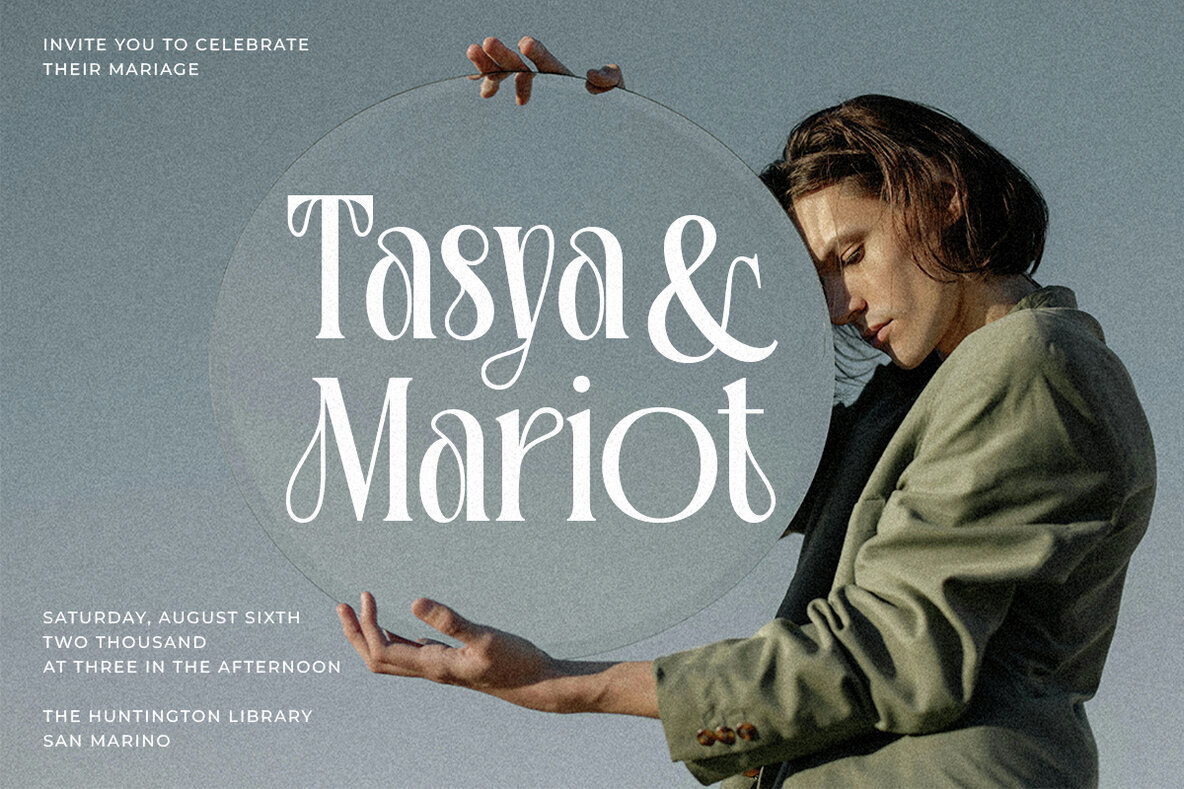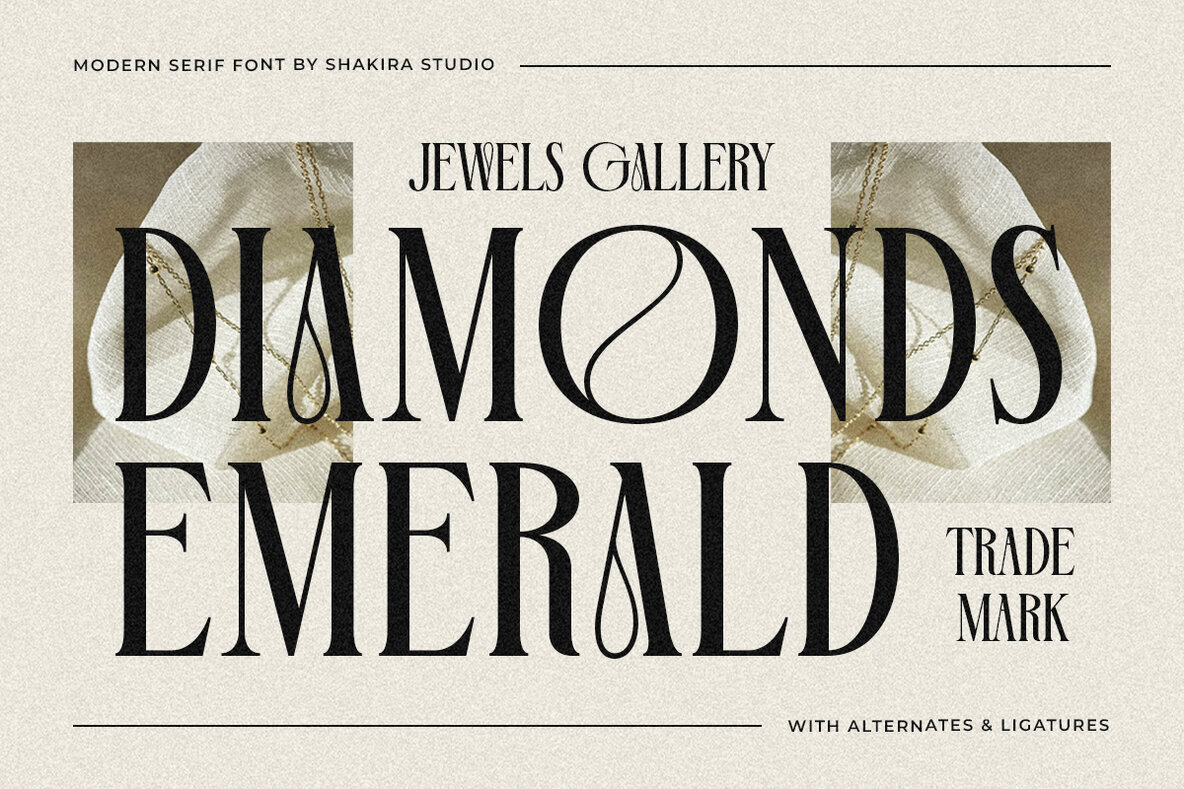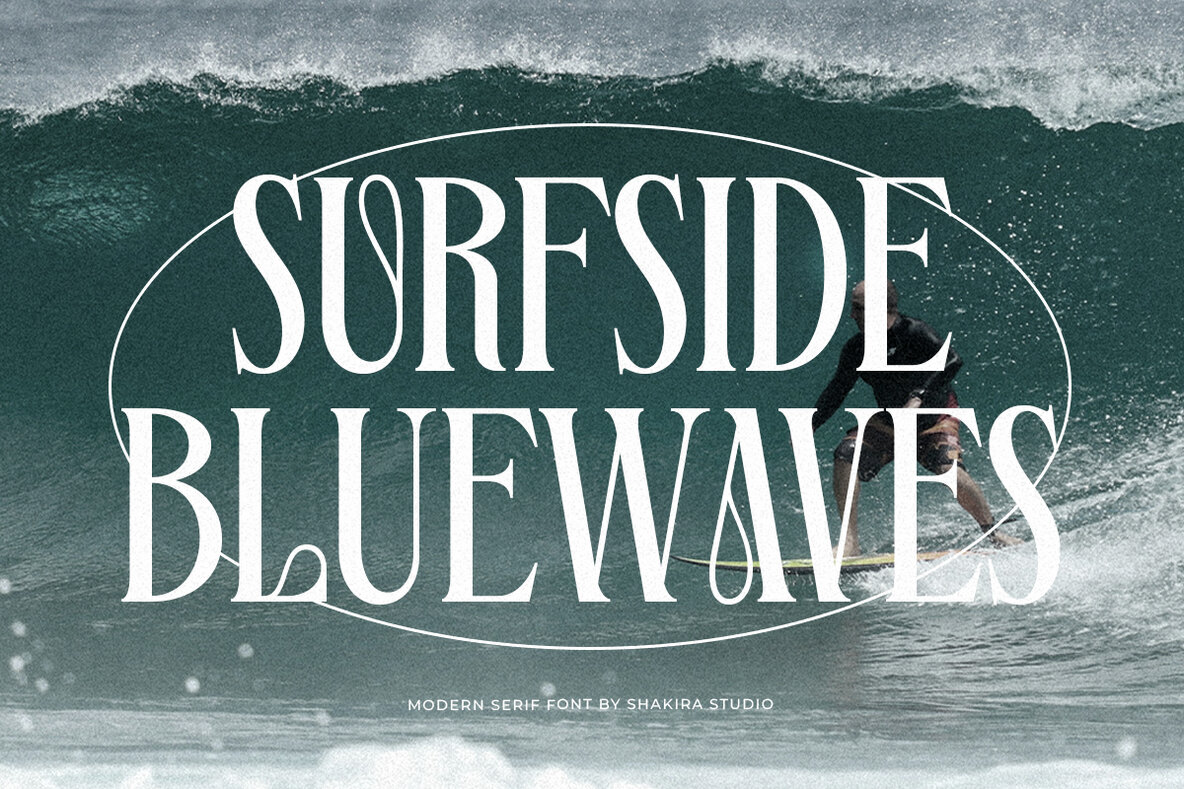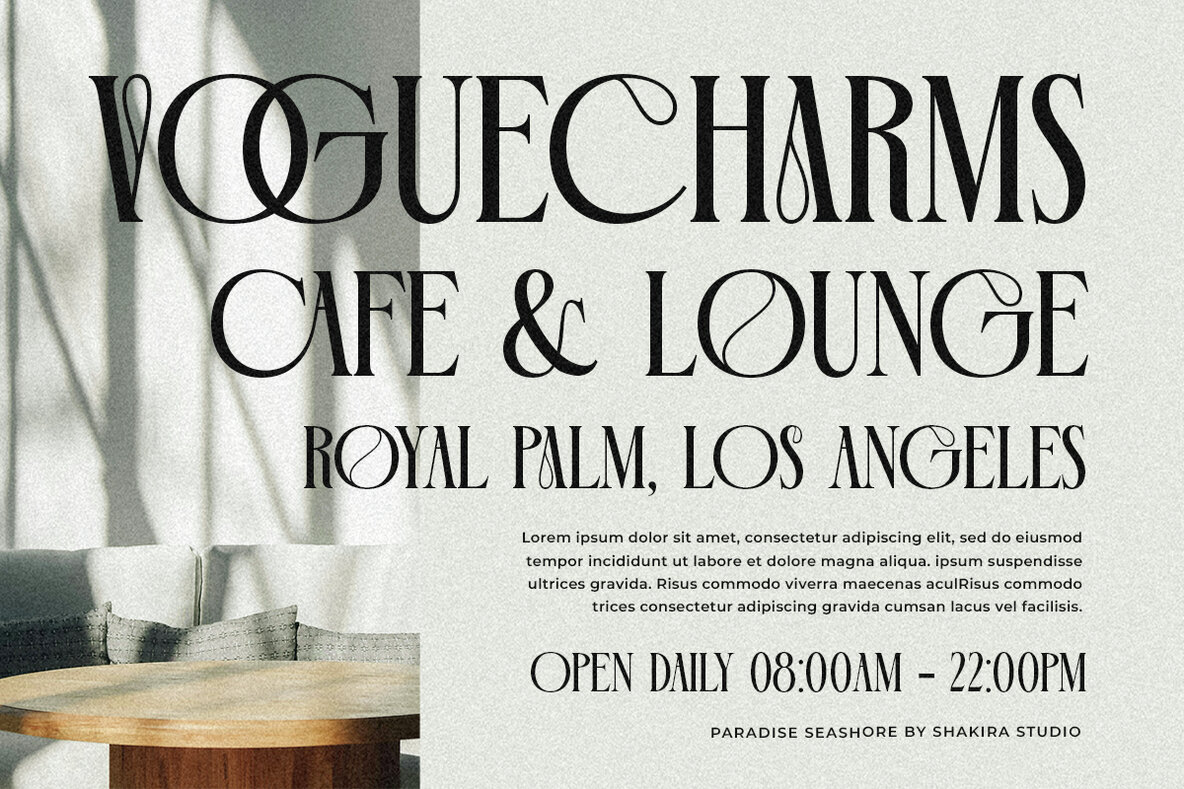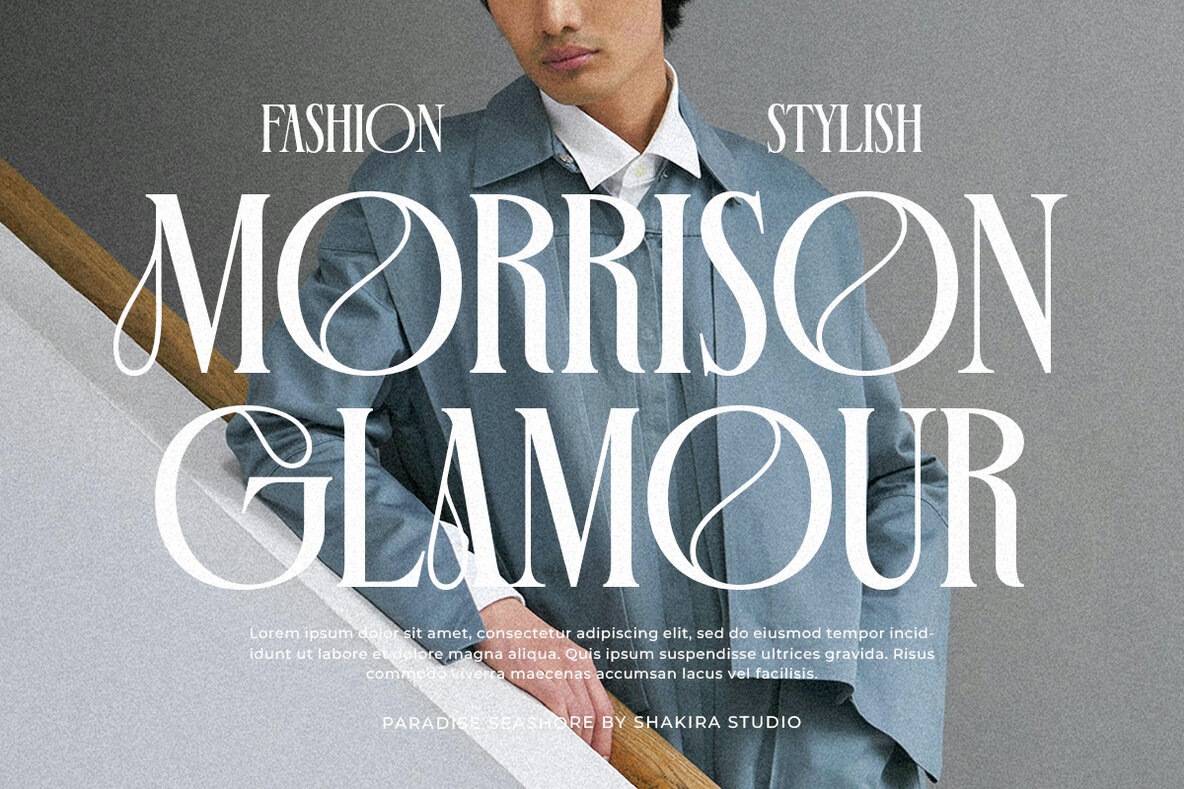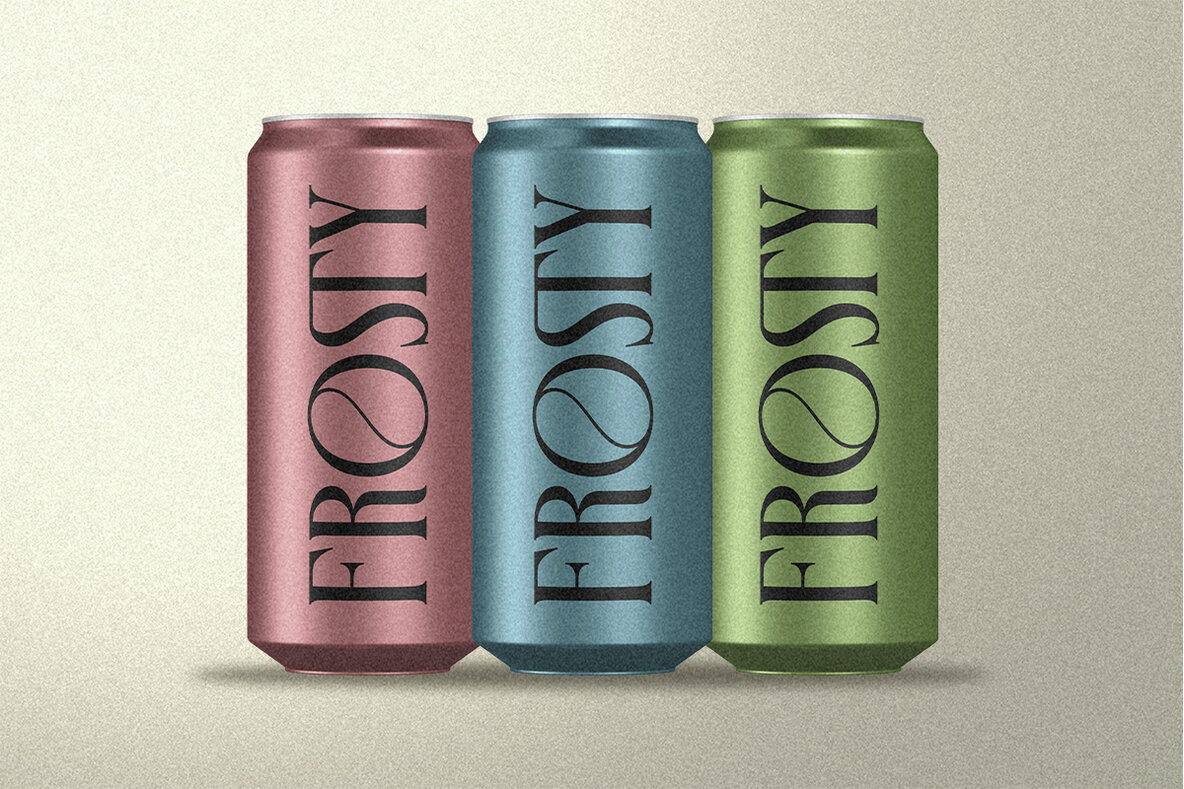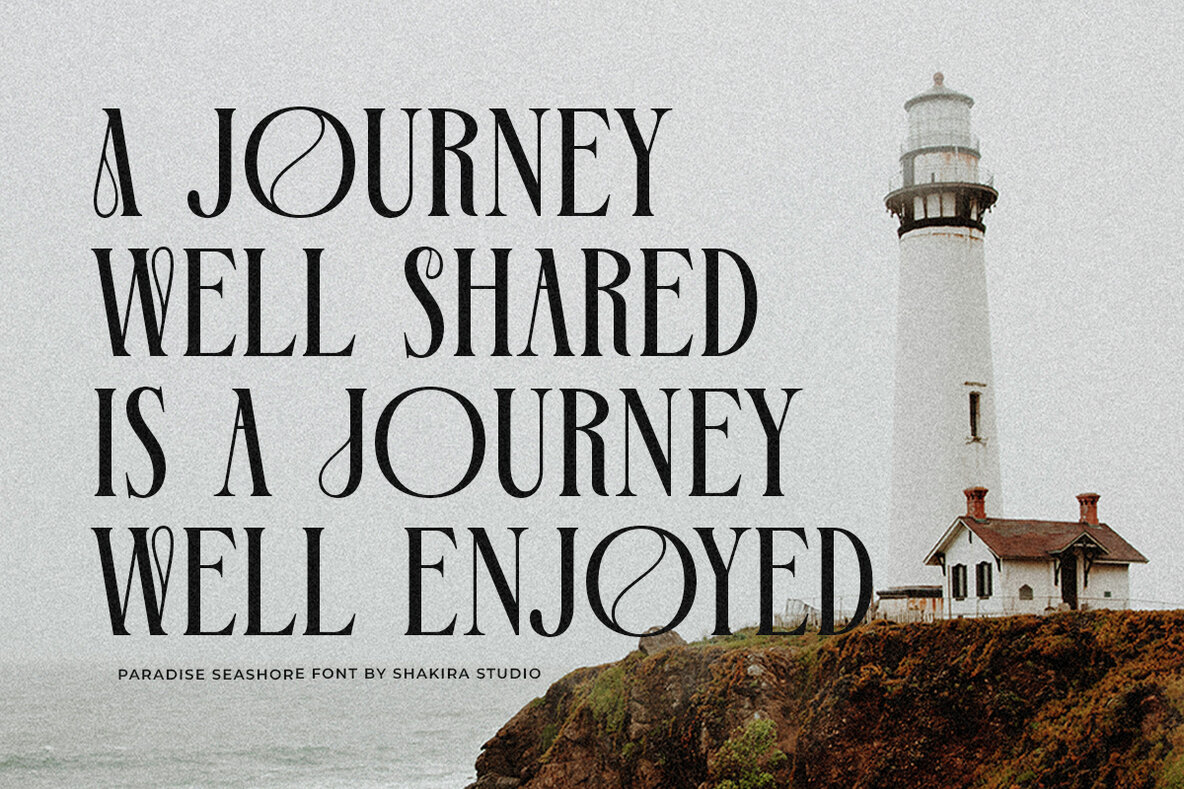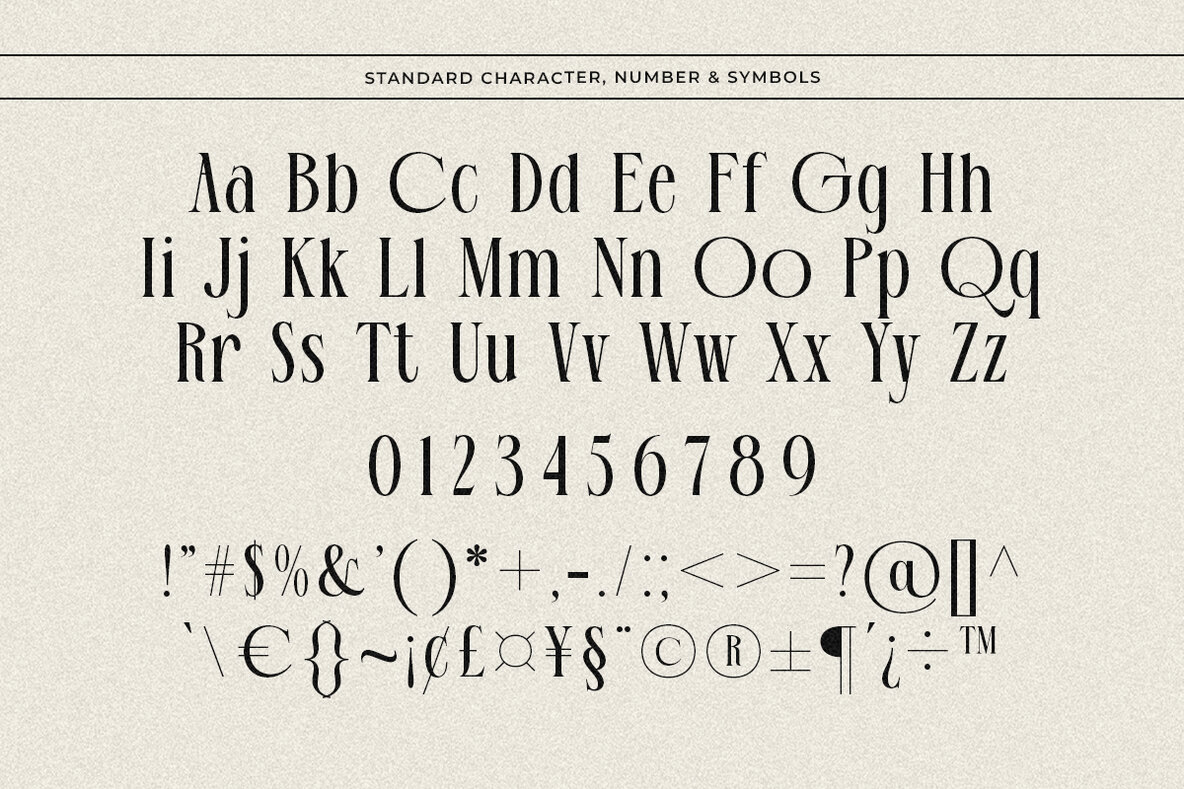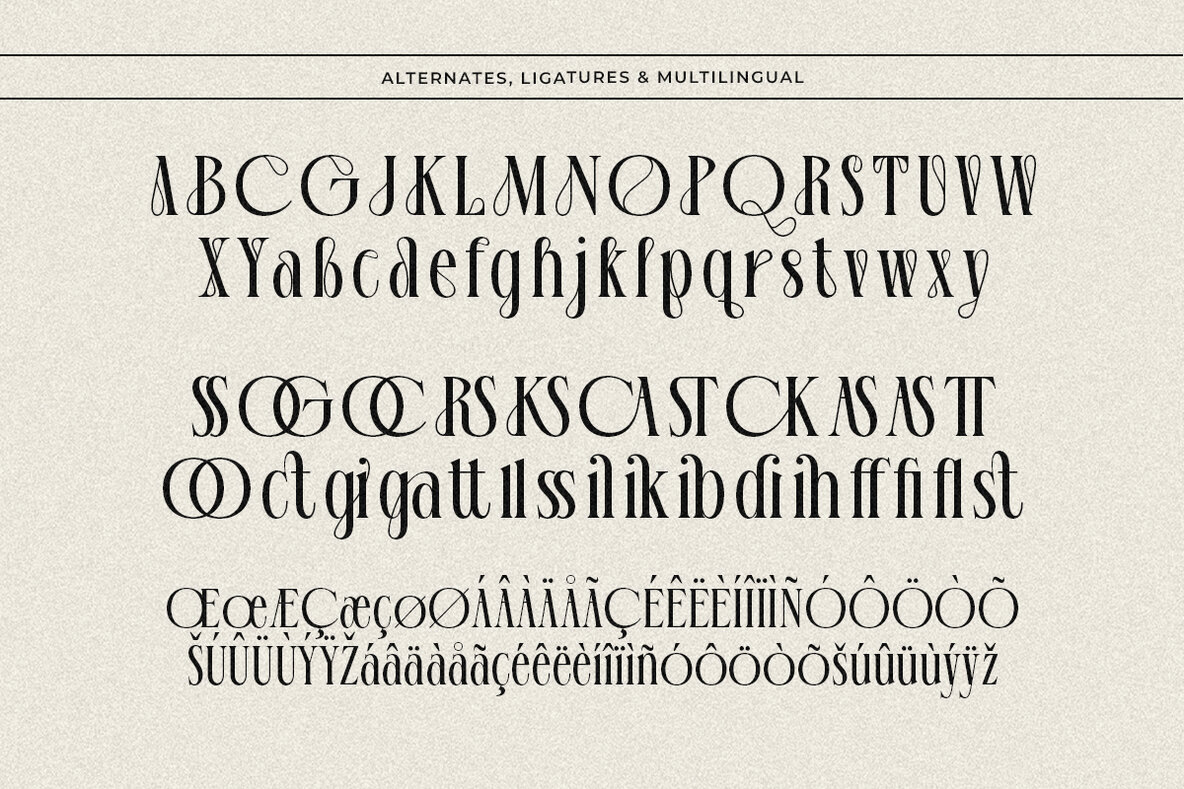
Paradise Seashore Font
Paradise Seashore Regular
Paradise Seashore Italic
Introducing Paradise Seashore, a luxurious modern tropical Display Serif font. This elegant typeface features a variety of attractive alternates and ligatures, adding a touch of sophistication to any design. Perfect for creating captivating headlines, branding, and editorial pieces, Paradise Seashore comes in both regular and italic versions, ensuring versatility for all your creative needs. Elevate your designs with the refined beauty of Paradise Seashore. Here's what you get: Multilingual character supports : (Afrikaans, Albanian, Catalan, Croatian, Czech, Danish, Dutch, English, Estonian, Finnish, French, German, Hungarian, Icelandic, Italian, Lithuanian, Maltese, Norwegian, Polish, Portuguese, Slovenian, Spanish, Swedish, Turkish, Zulu)